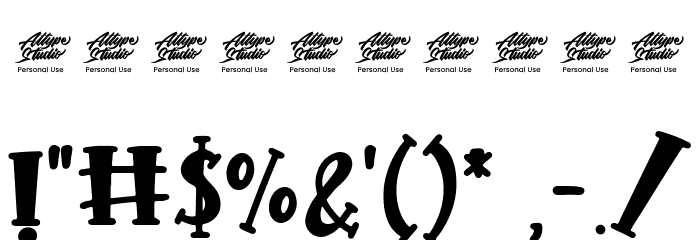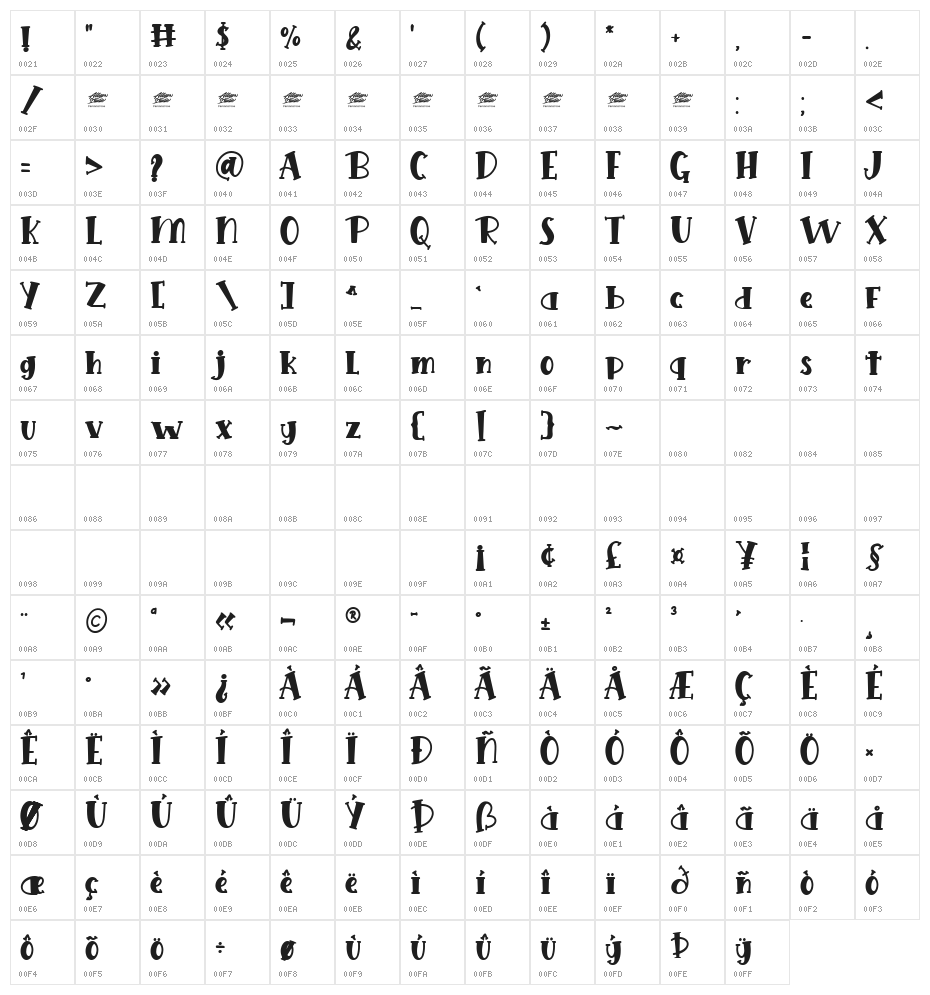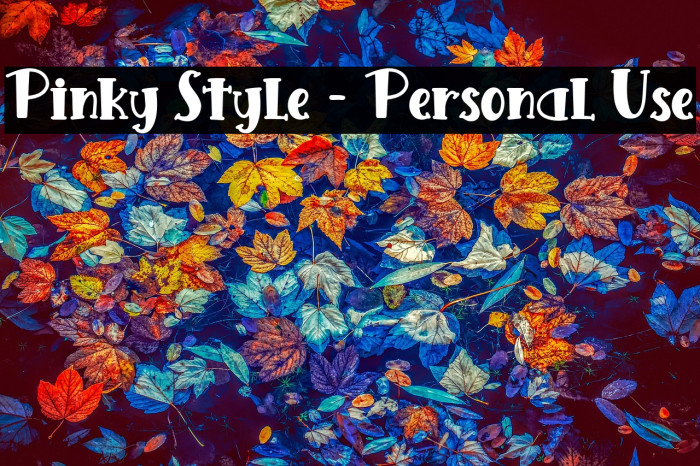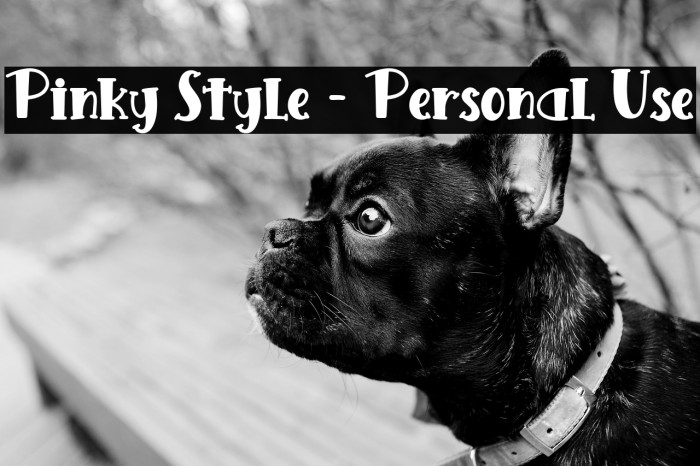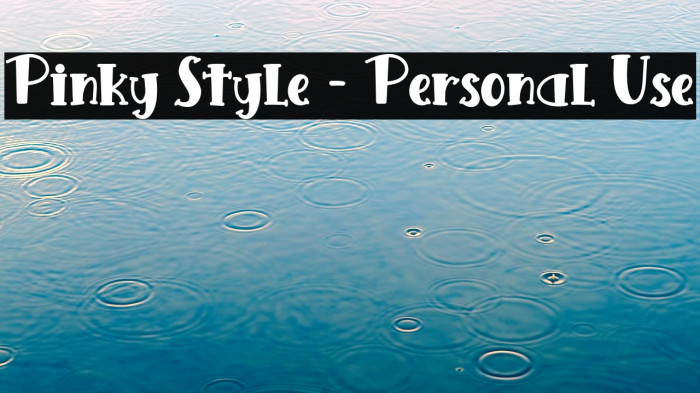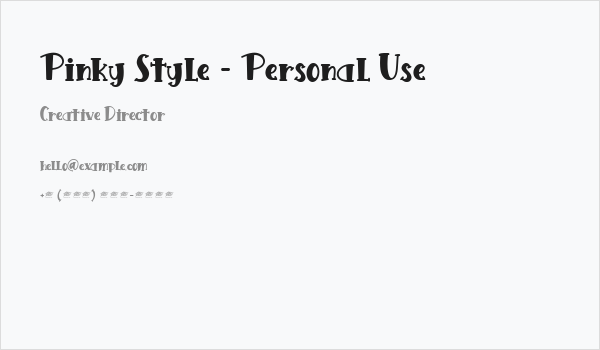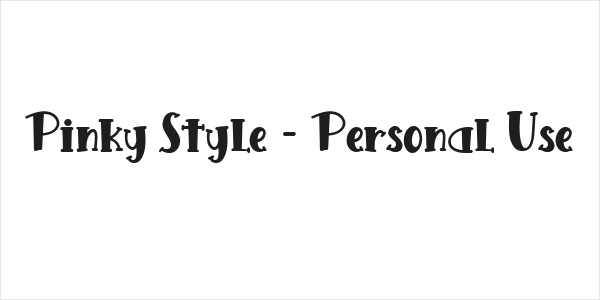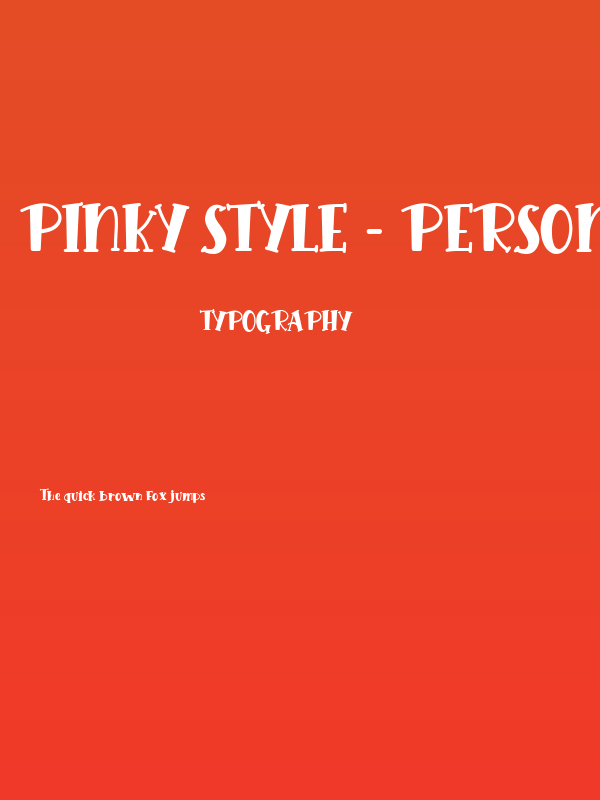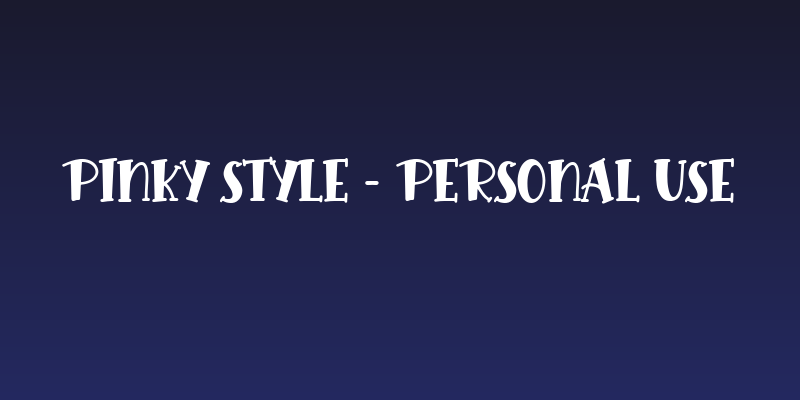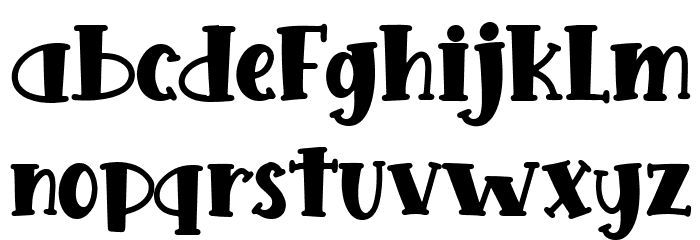
Pinky Style - Personal Use Font
Pinky Style - Personal Use Description
This font features a playful and whimsical design, characterized by its bold and curvy letterforms. The uppercase letters have a distinctive, slightly exaggerated flair, while the lowercase letters maintain a consistent, rounded appearance. The overall style is lively and energetic, making it ideal for projects that require a fun and informal touch. The characters are well-spaced, ensuring readability despite their decorative nature. The font includes a full set of uppercase and lowercase letters, numbers, and a variety of special characters, making it versatile for different design needs.
| Proposed Projects | Ideal for children's book covers, playful branding, party invitations, and creative posters. |